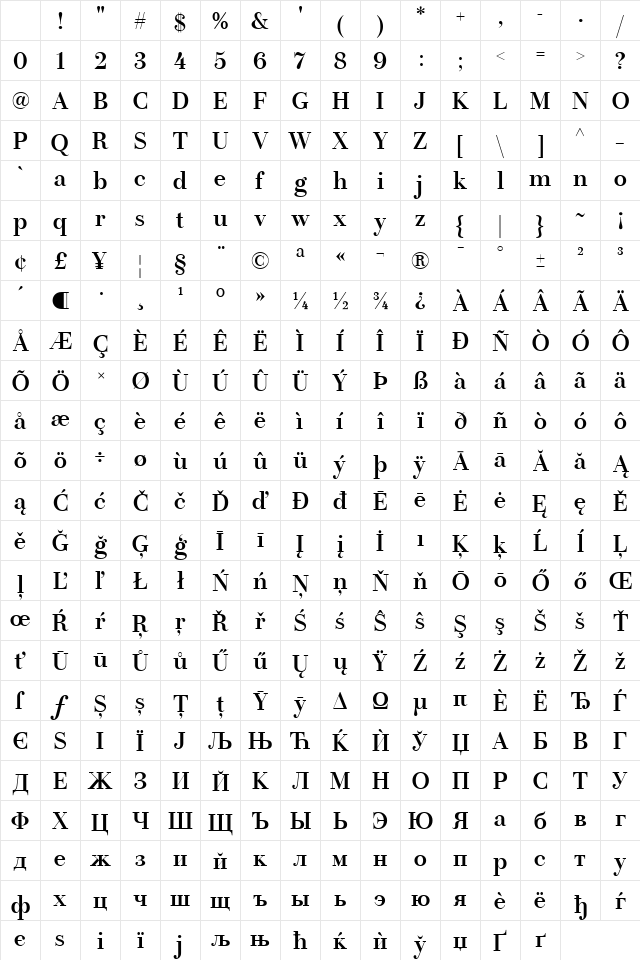
Complete LT Afficher Neue SemBd Subhead Regular glyph index. Displaying only characters natively supported by LT Afficher Neue SemBd Subhead Regular font.
LT Afficher Neue SemBd Subhead is a composed and adaptable typeface that performs quietly and consistently across a wide range of design contexts. Its slender proportions lend an understated elegance to any composition.